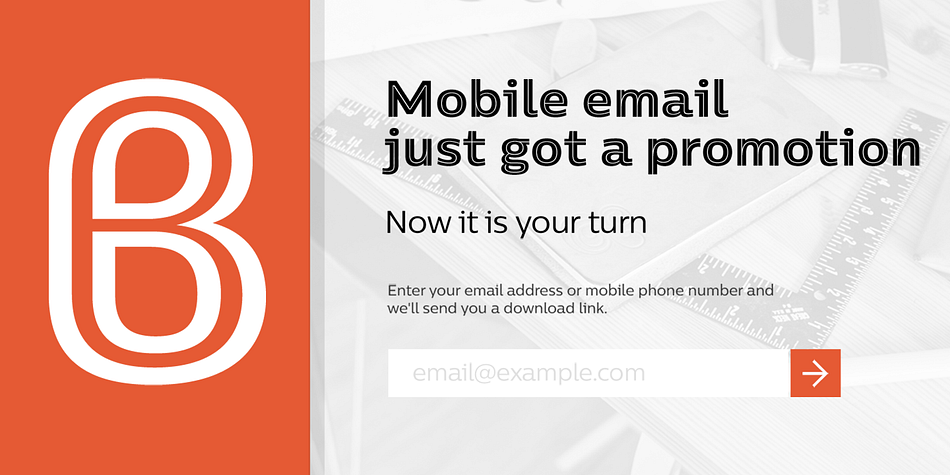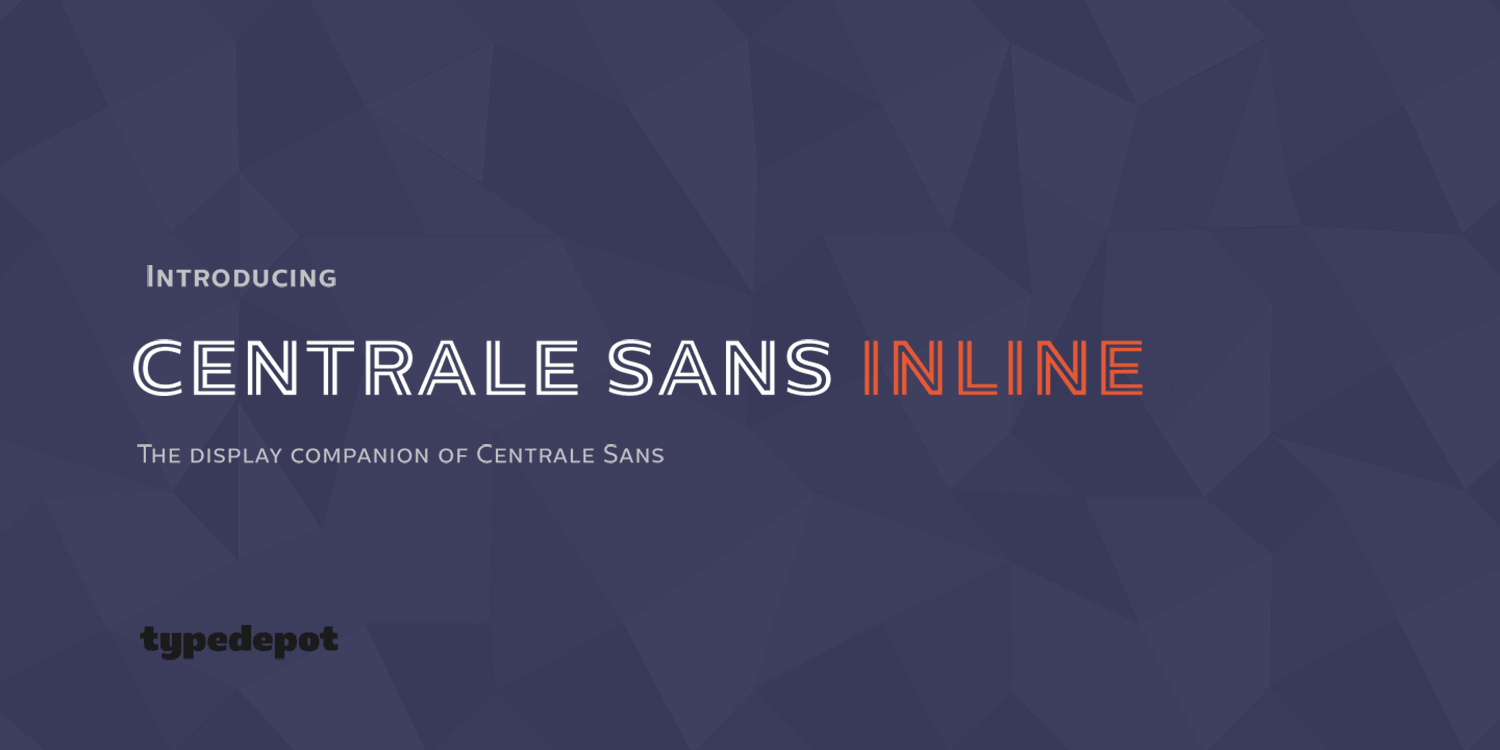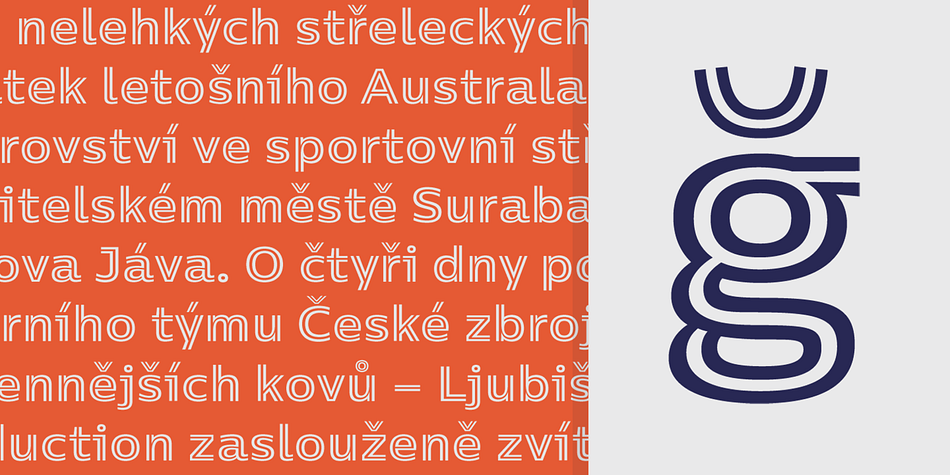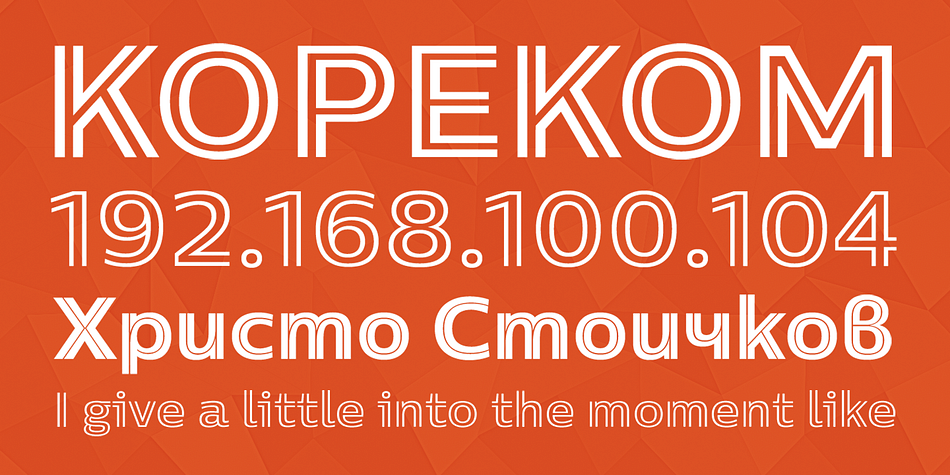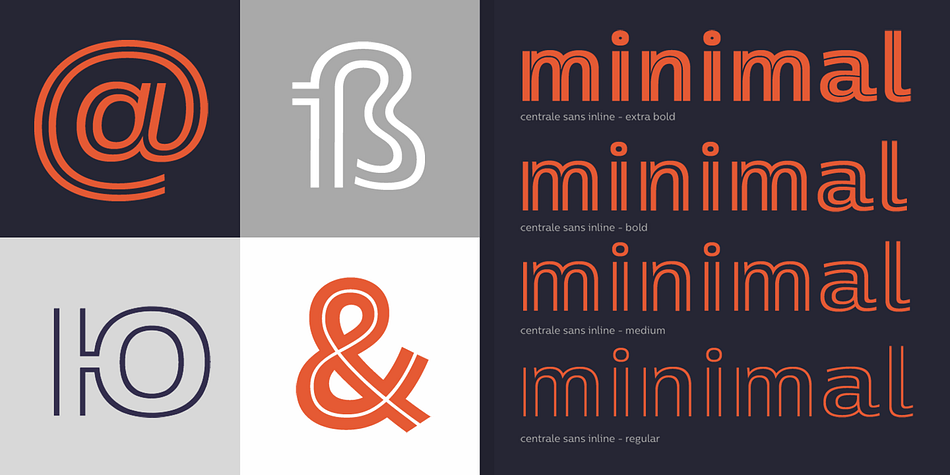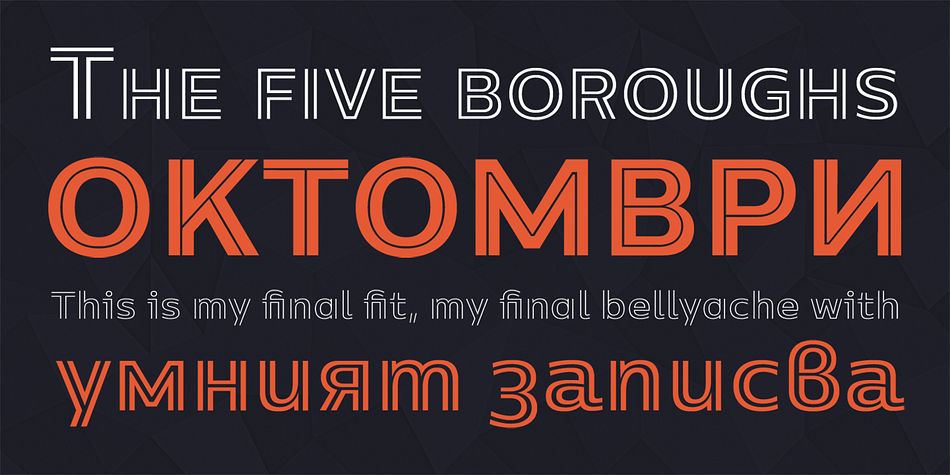
Centrale Sans Inline is a display sans font family. This typeface has four styles and was published by Typedepot.
The inline version of Centrale Sans, designed solely for display purposes, comes quite in handy when looking for a headline combined with Centrale Sans or Centrale Sans Condensed. Although it has a slightly smaller character set (no small caps included), it still has everything you need from a display typeface – being eye catching.
With 4 weights, more than 500 glyphs, Latin and Cyrillic support, Centrale Sans Inline will be a great asset to your font library.